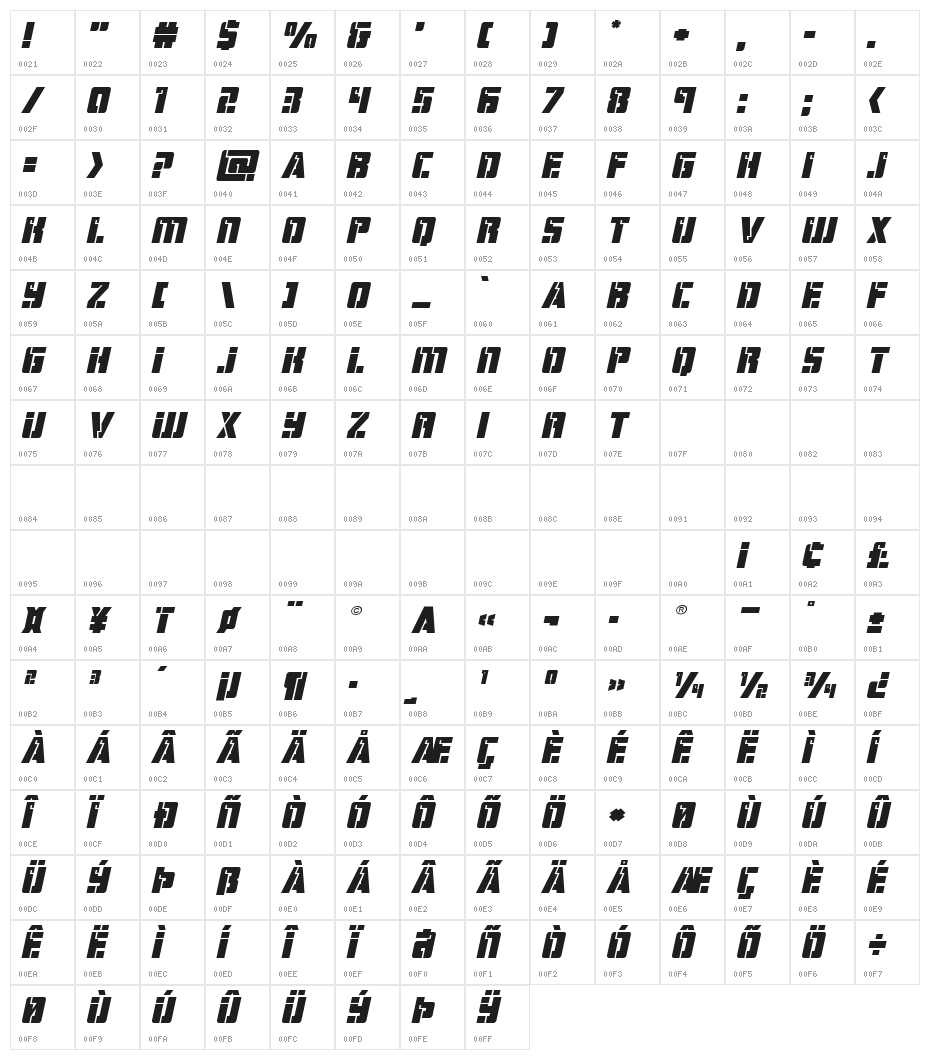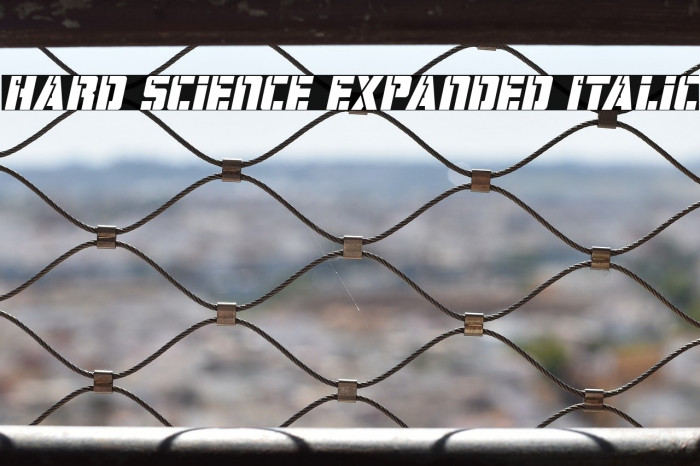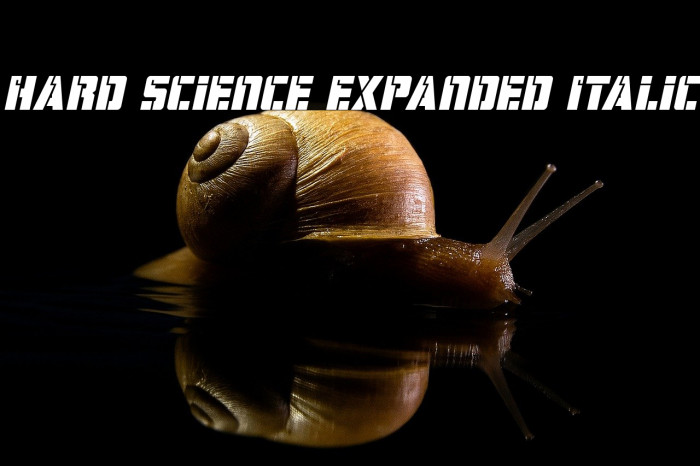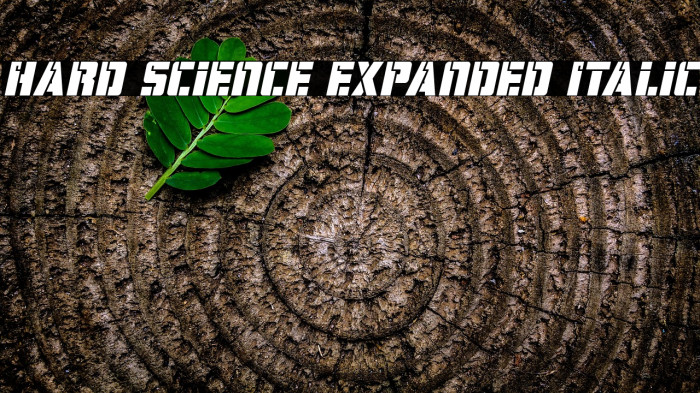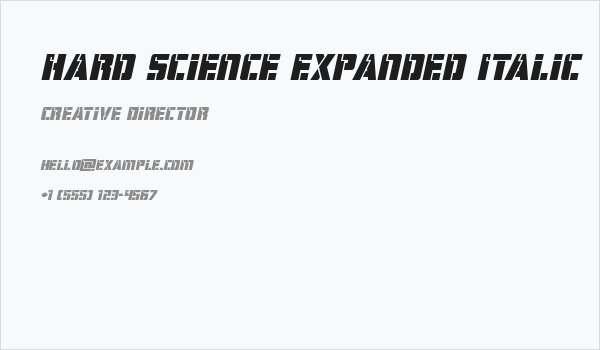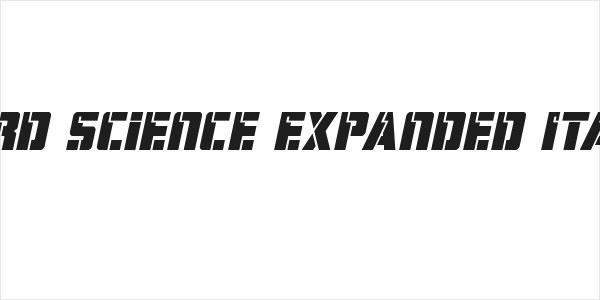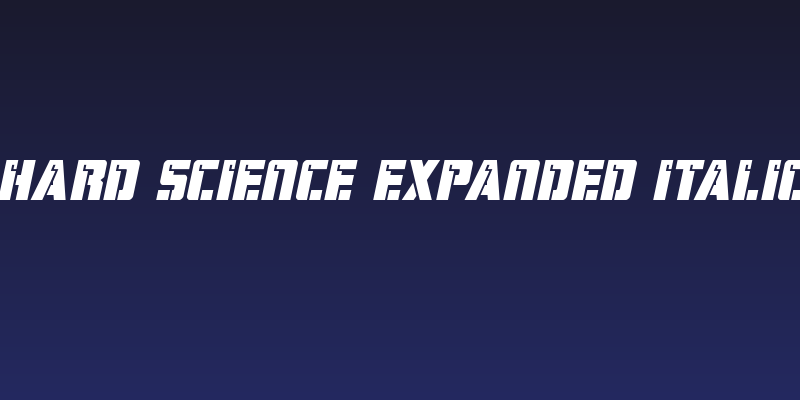
Hard Science Expanded Italic Font
Hard Science Expanded Italic Description
This font features a bold and dynamic design with an italicized slant, giving it a sense of movement and energy. The characters are expanded, providing a wide stance that enhances readability while maintaining a strong visual impact. The geometric shapes and sharp angles contribute to a futuristic and modern aesthetic, making it suitable for projects that require a bold statement. The uppercase and lowercase letters are consistent in style, with numerals and special characters that complement the overall design. The font's unique style is ideal for creating eye-catching headlines, posters, and branding materials.